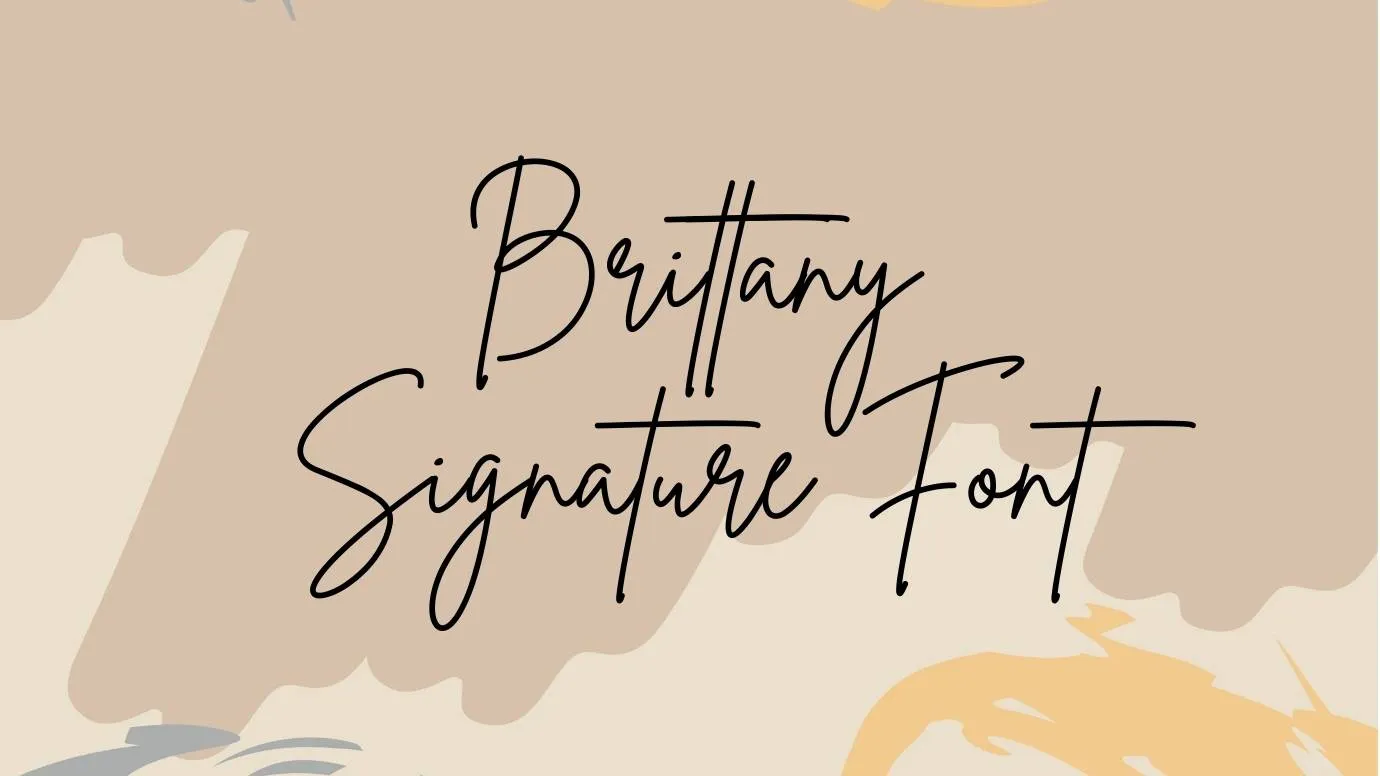
Brittany Signature Font Family is a handwritten typeface that is mostly used for creating astonishing and unique signatures. Creatype Studio shared and designed for the first time in the designing market. Due to its stylish look, this font is best for various fashional text designs.
It is perfect for making pairing with script and calligraphy fonts for new designing purposes like hamilton and black pen signature font.
Brittany Signature Font